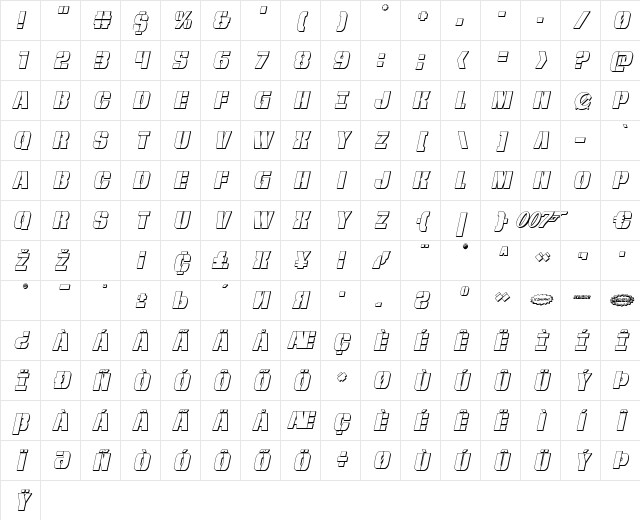
From BOND With Love 3D Italic is a composed and adaptable typeface that performs quietly and consistently across a wide range of design contexts. The slanted form adds forward momentum and visual energy.